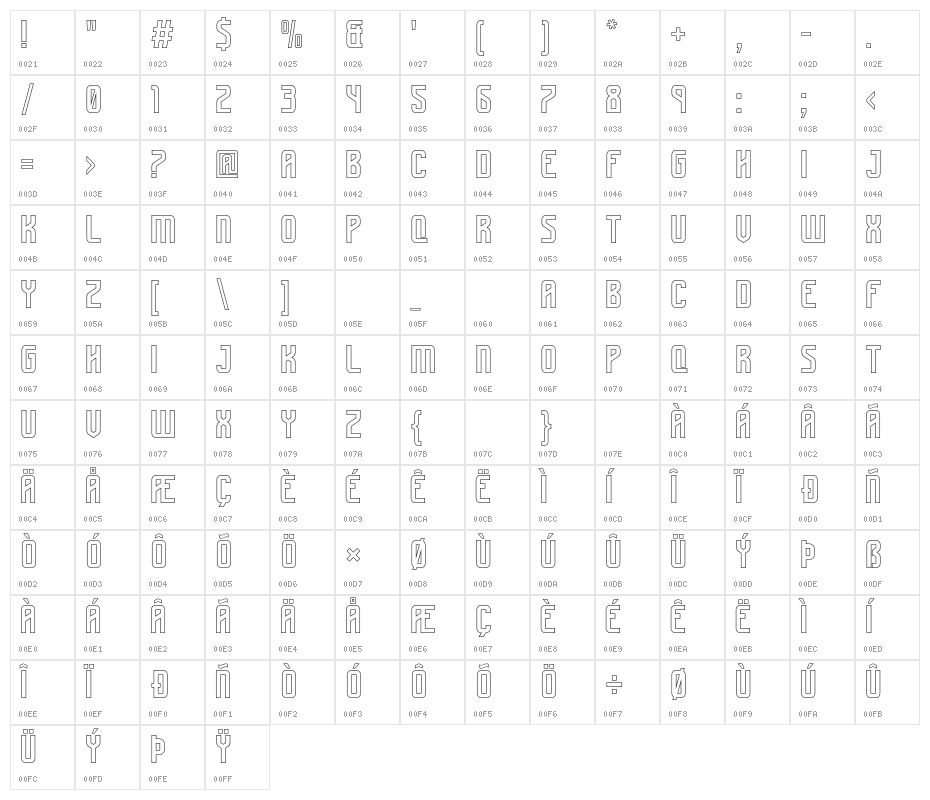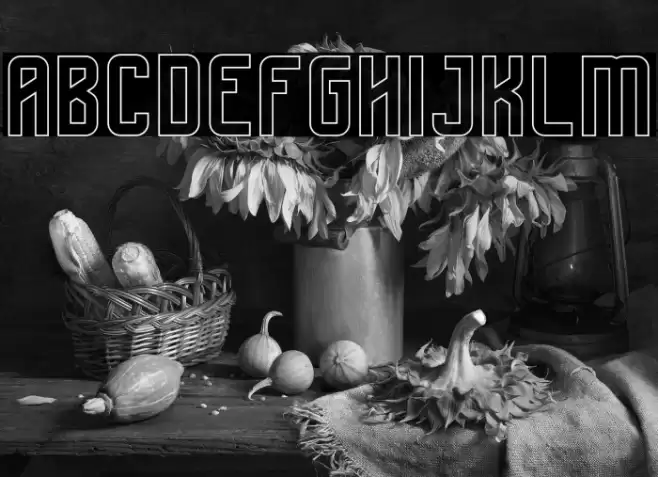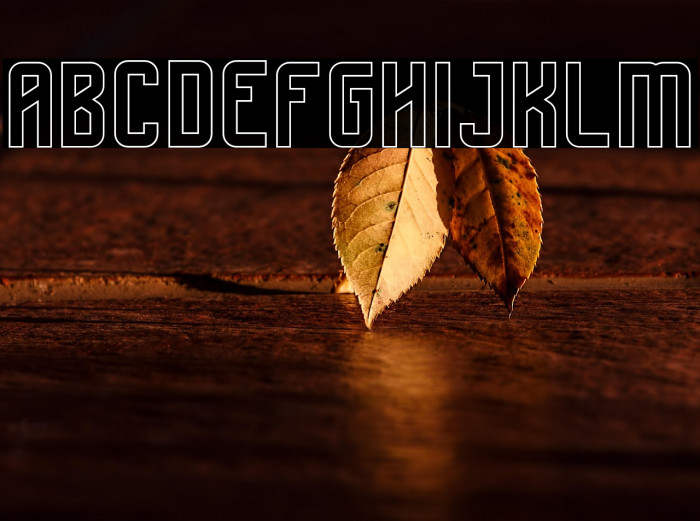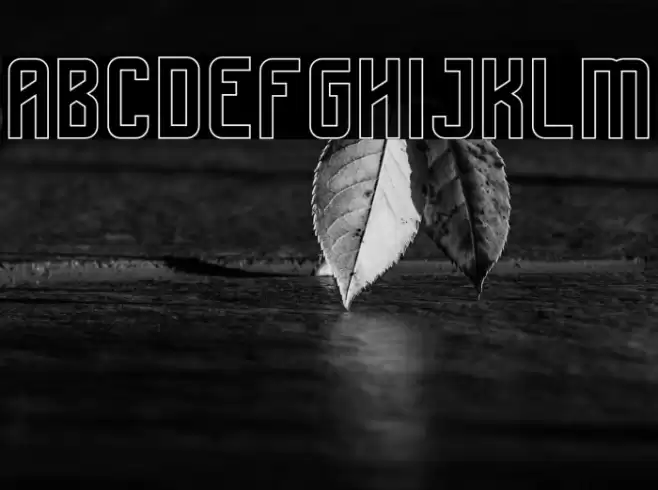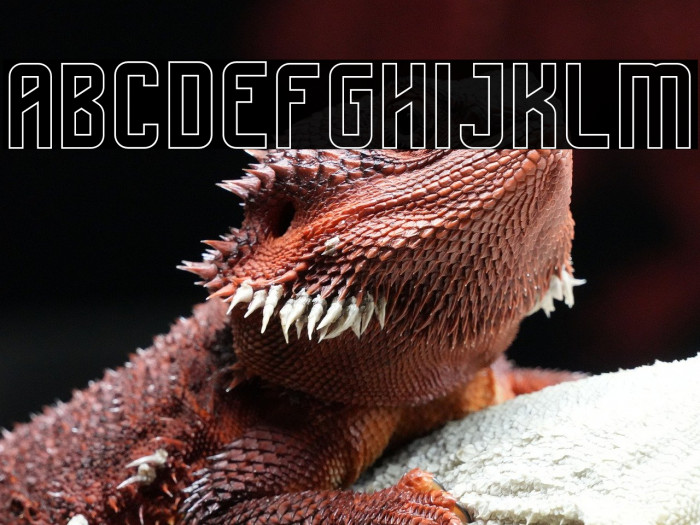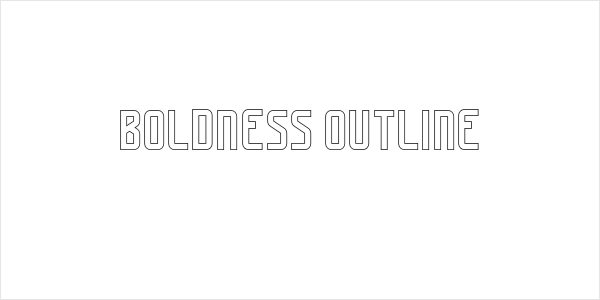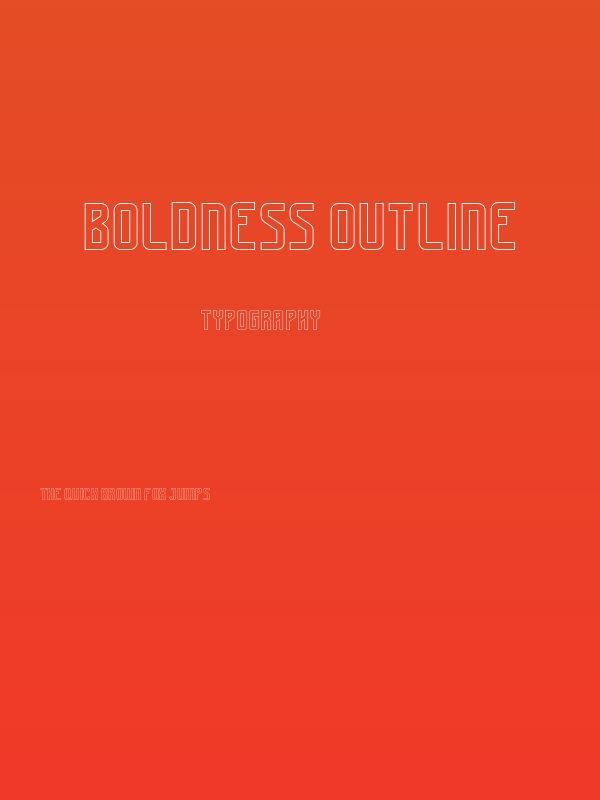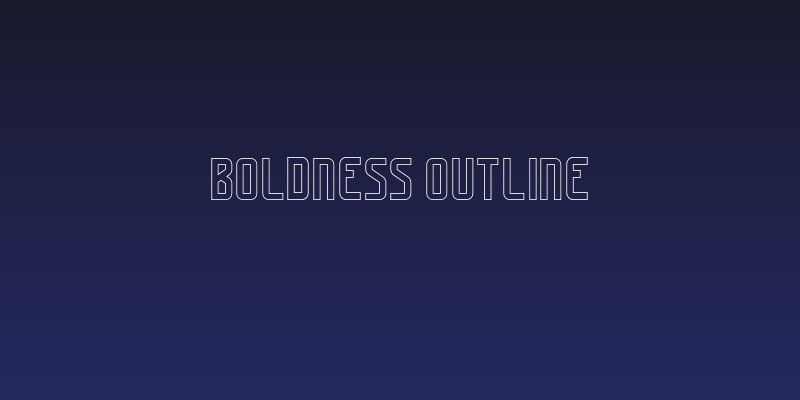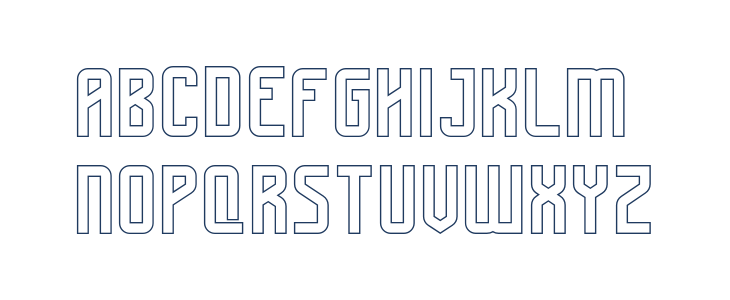
Boldness Outline Font
Boldness Outline Description
This font features a bold, geometric outline style that emphasizes its modern and futuristic appeal. The characters are constructed with clean, straight lines and sharp angles, creating a sense of precision and clarity. The uppercase and lowercase letters maintain a consistent height and width, contributing to a uniform appearance. Numbers and special characters are designed with the same attention to detail, ensuring a cohesive look across all elements. The outline design adds a unique dimension, making it ideal for projects that require a standout, contemporary aesthetic.
| Proposed Projects | Ideal for branding, posters, headlines, and digital media where a modern and eye-catching look is desired. |